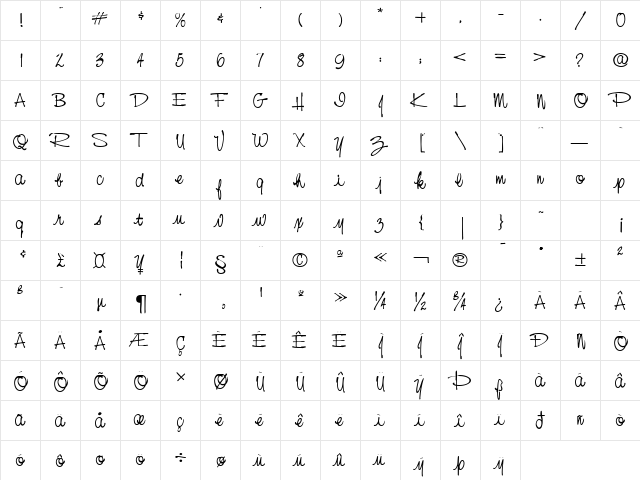
Nora Casual Regular Font Preview
Nora Casual Regular
Nora Casual Regular Font Details
Design Context for Nora Casual Typeface
Nora Casual is a composed and adaptable typeface that performs quietly and consistently across a wide range of design contexts.